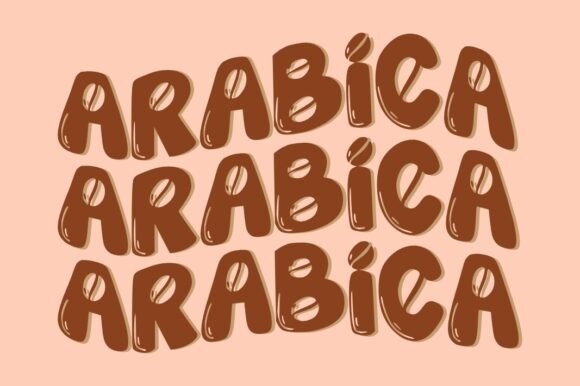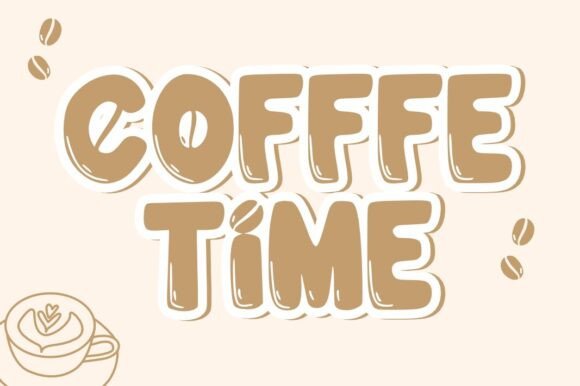
Embody the Spirit of a Coffee Lover with the Inviting “Coffee Lover” Font
Are you a designer or craftsperson looking for a font that captures the warmth and passion of coffee culture? Look no further than the “Coffee Lover” font, a vibrant and powerful design that’s sure to perk up your creative projects. With its clear rounded contours and unique coffee bean decorations, this font embodies the spirit of a coffee lover and invites your audience to join in on the experience.
The Unique Characteristics of “Coffee Lover”
At first glance, the “Coffee Lover” font may seem like a playful and whimsical design, but it’s precisely this charm that makes it so effective. The clear rounded contours of each character provide a welcoming tone to your textual landscape, making it perfect for coffee shop branding, packaging design, or any creative endeavor that thrives on the comfort and passion intertwined with great coffee.
What truly sets “Coffee Lover” apart, however, is the distinctive essence of coffee bean decorations that enliven each character. These unique touches add a rich aroma of coffee warmth and devotion to your work, giving it a one-of-a-kind feel that’s sure to stand out. Whether you’re designing a logo, creating packaging for a coffee shop, or simply want to add a personal touch to your craft projects, “Coffee Lover” is the perfect choice.
Perfect for Coffee Shop Branding and Packaging Design
For coffee shops and cafes, a strong brand identity is essential for attracting and retaining customers. The “Coffee Lover” font offers a unique opportunity to create a cohesive and recognizable brand image that reflects the warmth and hospitality of your business. Use it to design eye-catching logos, menus, and packaging that will make your coffee shop stand out from the competition.
In addition to its use in coffee shop branding, “Coffee Lover” is also ideal for packaging design. Whether you’re creating custom labels for coffee beans, designing coffee-themed gift boxes, or developing packaging for coffee-related products, this font is sure to add a touch of personality and whimsy to your designs.
Beyond Coffee Shops: Creative Uses for “Coffee Lover”
While “Coffee Lover” may have been designed with coffee culture in mind, its versatility and charm make it suitable for a wide range of creative projects. Consider using it for:
- Craft projects, such as handmade cards, gift tags, and scrapbooking
- Food blogs and recipe design, particularly for coffee and dessert-related content
- Graphic design projects, such as posters, flyers, and brochures
- Stationery and paper products, like notebooks, journals, and stickers
Tips for Getting the Most Out of “Coffee Lover”
To truly embody the spirit of a coffee lover with the “Coffee Lover” font, consider the following tips:
- Pair “Coffee Lover” with complementary fonts to create visual interest and contrast
- Experiment with different colors and textures to add depth and warmth to your designs
- Use the coffee bean decorations to create a cohesive look and feel across multiple design elements
- Don’t be afraid to get creative and try out new and innovative uses for the font
The “Coffee Lover” font is a vibrant and powerful design that’s sure to bring a touch of warmth and personality to your creative projects. With its unique coffee bean decorations and inviting essence, it’s the perfect choice for coffee shop branding, packaging design, and a wide range of craft and design applications. So why settle for a generic font when you can embody the spirit of a coffee lover with “Coffee Lover”? Download it today and start creating!